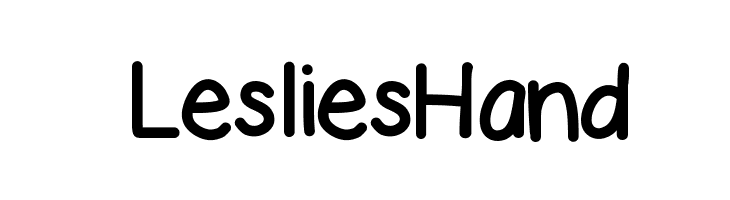
A playful, hand-drawn font with rounded, informal characters.
Casual handwritten script font.
A bold, playful font with thick, rounded strokes and a friendly appearance.